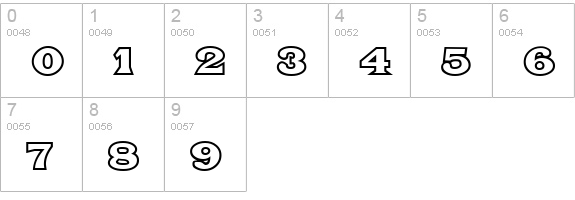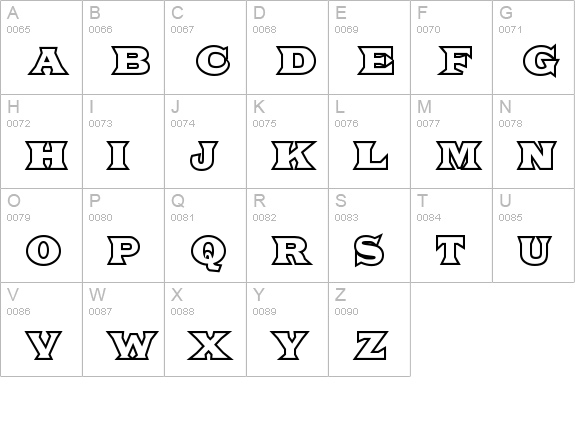
Fat Legs Outline Font Details
Sure! Here is a long description for the Fat Legs Outline font: Embrace the bold and playful spirit of the Fat Legs Outline font. With its distinctive outline style, this font is perfect for making a statement in your designs. The thick strokes and rounded edges give each letter a unique charm that is sure to catch the eye. Whether you're creating posters, logos, or social media graphics, Fat Legs Outline will add a touch of fun and creativity to your projects. The best part? Fat Legs Outline is available for free download at FontsMarket.com. This means you can easily access this eye-catching font and start using it in your designs right away. Don't miss out on the opportunity to add a fresh and modern touch to your work with the Fat Legs Outline font. Download it today and let your creativity soar!